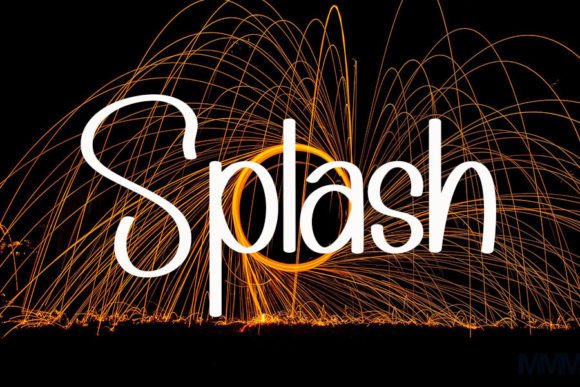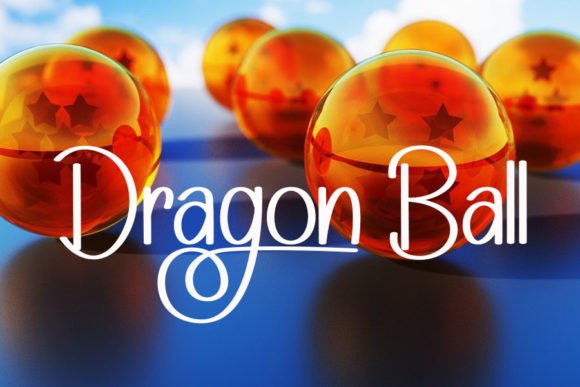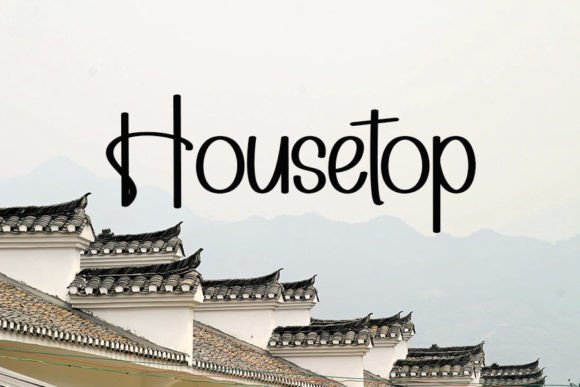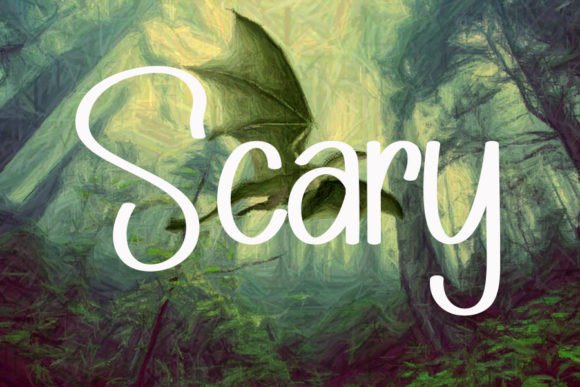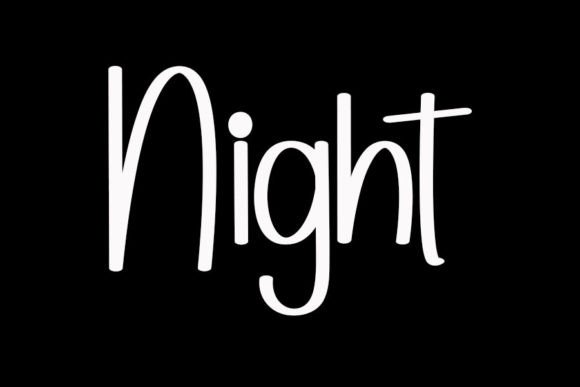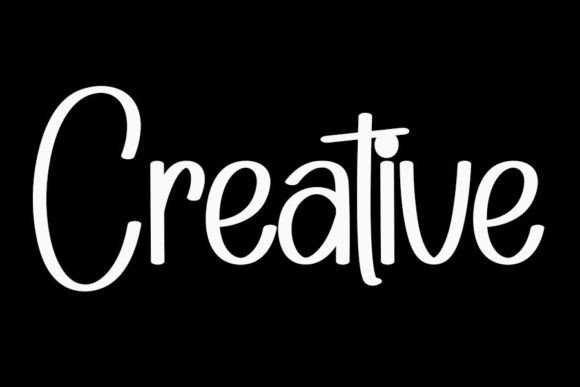
Discover the Elegance of Dragon Font: A Timeless Handwritten Script
Are you on the hunt for a font that exudes elegance, sophistication, and a touch of whimsy? Look no further than the Dragon Font, a stunning handwritten script that’s sure to capture your heart. With its incredibly distinct and timeless style, this beautiful font is perfect for designers, crafters, and anyone looking to add a touch of magic to their projects.
The Charm of Dragon Font
Dragon Font is a neat and beautiful handwritten font that boasts an elegant touch, making it ideal for a wide range of applications. From romantic wedding invitations to stylish branding and packaging, this versatile font is sure to impress. Its unique and distinctive style sets it apart from other fonts, ensuring that your designs will stand out from the crowd.
Key Features of Dragon Font
- Elegant and Refined: Dragon Font features a sophisticated and elegant design that’s perfect for projects that require a touch of luxury.
- Handwritten with Love: This beautiful font is crafted with love and care, giving it a personal and unique feel.
- Timeless Style: Dragon Font’s classic design ensures that it will remain stylish and relevant for years to come.
- Highly Versatile: Use Dragon Font for a wide range of projects, from digital designs to print materials.
Dragon Font is a dream come true for designers and crafters who want to add a touch of personality to their work. Whether you’re creating:
- Branding and Packaging: Use Dragon Font to create eye-catching logos, labels, and packaging that stands out.
- Wedding and Event Invitations: Add a touch of romance and elegance to your wedding invitations, save-the-dates, and event materials.
- Digital Designs: Incorporate Dragon Font into your social media graphics, blog headers, and website designs.
- Handmade Crafts: Use Dragon Font to create beautiful and unique titles, headings, and labels for your handmade crafts.
- Mix and Match: Combine Dragon Font with other fonts to create a unique and eye-catching design.
- Play with Colors: Experiment with different colors and textures to add depth and interest to your designs.
- Experiment with Sizes: Use Dragon Font in a variety of sizes to create visual hierarchy and emphasis.
In conclusion, Dragon Font is a stunning handwritten script that’s sure to capture your heart. With its elegant touch, timeless style, and versatility, this beautiful font is perfect for designers, crafters, and anyone looking to add a touch of magic to their projects. So why wait? Fall in love with Dragon Font and start creating spectacular designs today!